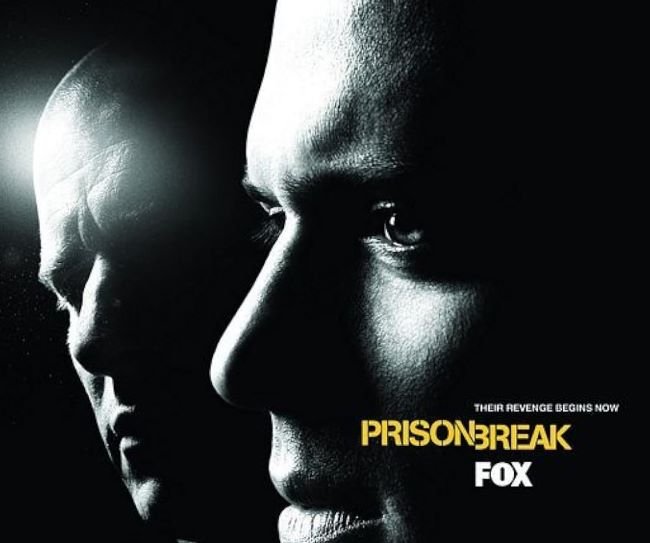
Prison Break font has the look of something stamped by a bureaucratic machine that was never designed to be anything other than functional — block-style utilitarian lettering with a pressed, institutional quality that evokes intake forms, cell block signs, and the kind of stenciled markings applied to things the state considers its property. Fox’s 2005 thriller, following Michael Scofield’s meticulously engineered plan to break his wrongfully convicted brother out of Fox River State Penitentiary, needed title typography that could carry both the show’s intense procedural intelligence and the cold institutional reality of the system being beaten. The freely available Prison Break Font channels this gritty, institutional energy.